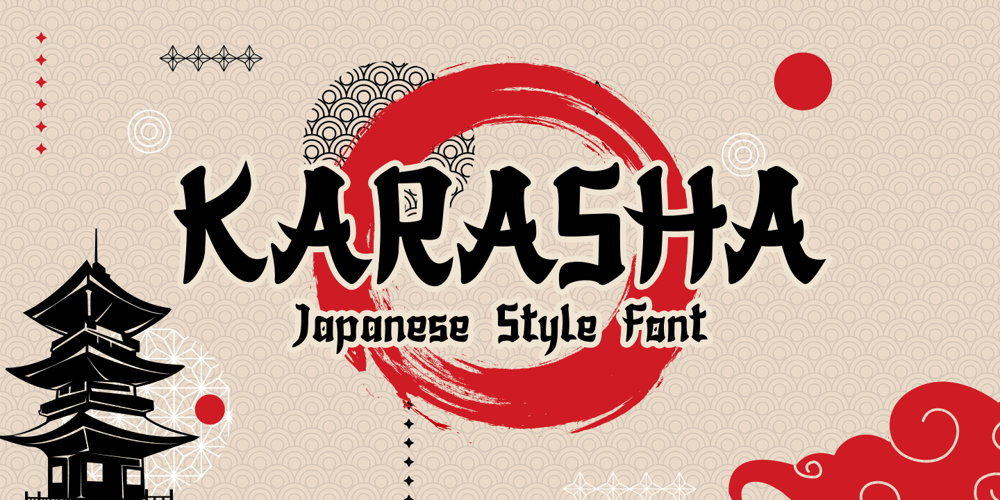
Karasha Font Family was designed by Nur Faidin and published by Nurf Designs. Karasha contains 1 styles and family package options. Karasha is a display font with Japanese style. You will get an Japanese feel to every text that uses this font. It’s the perfect font for any design projects that require a Asian aesthetic. Works on PC & Mac Simple installations Accessible in the Adobe Illustrator, Adobe Photoshop, Adobe InDesign, even work on Microsoft Word. PUA Encoded Characters – Fully accessible without additional design software.